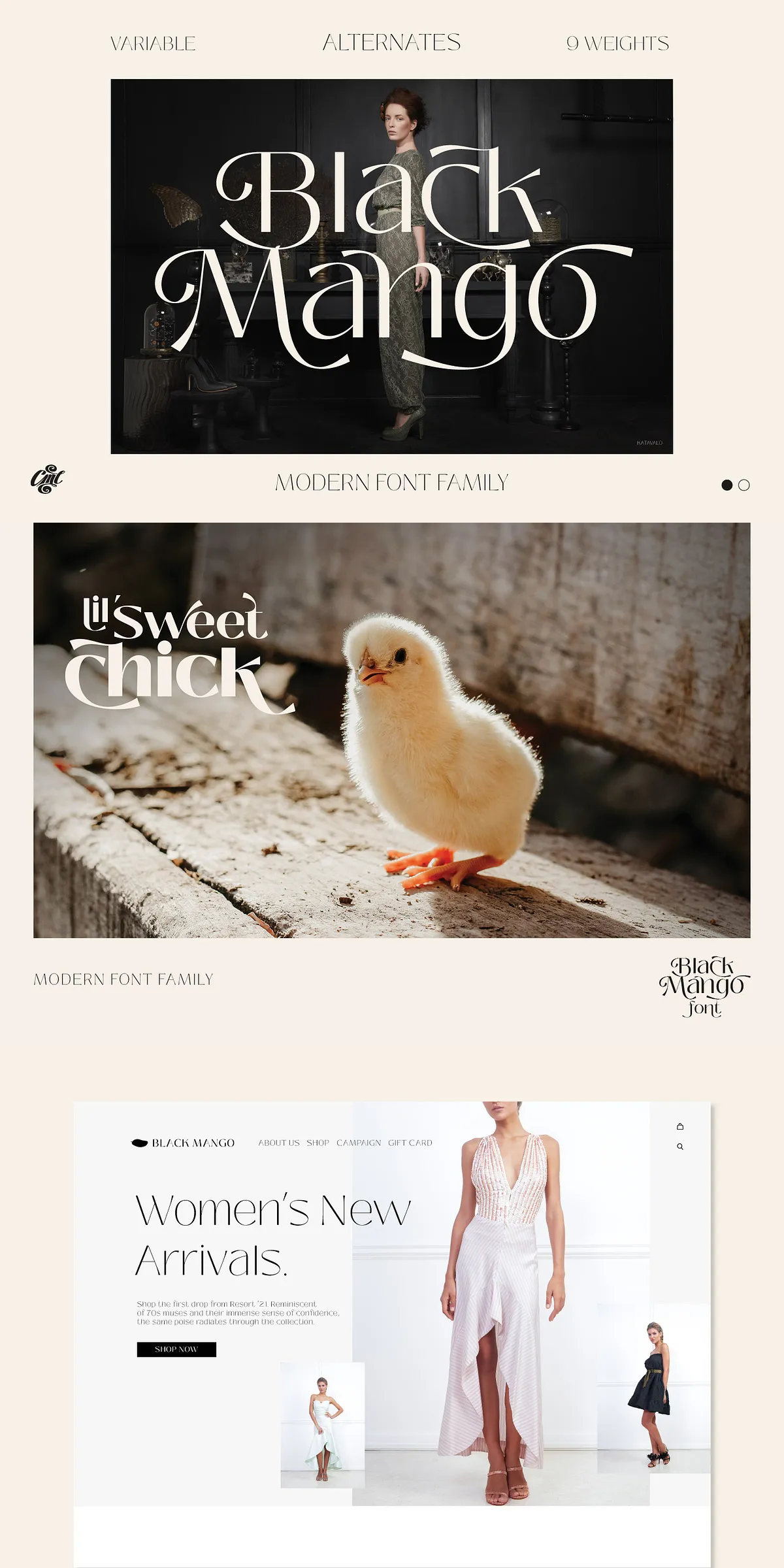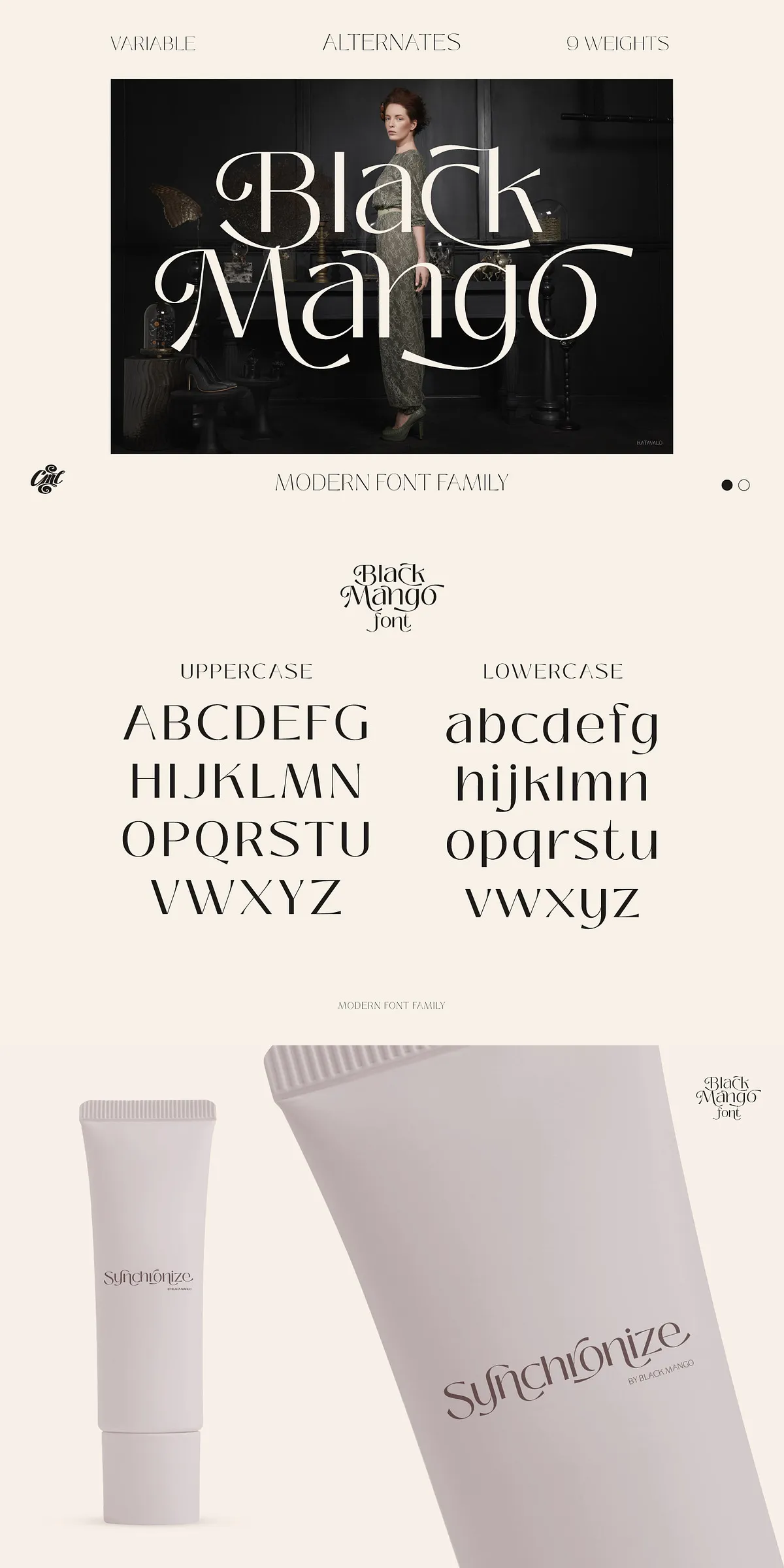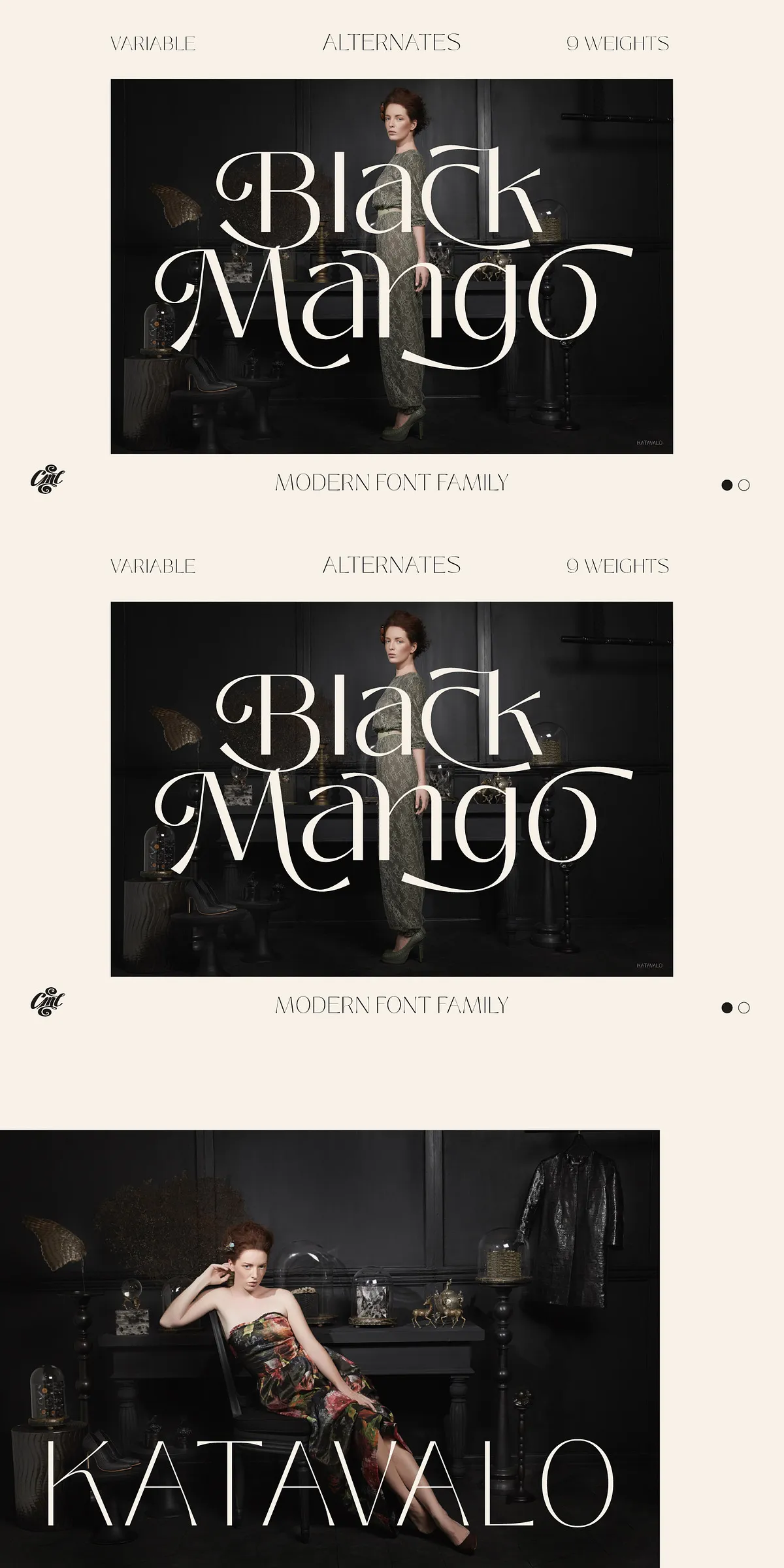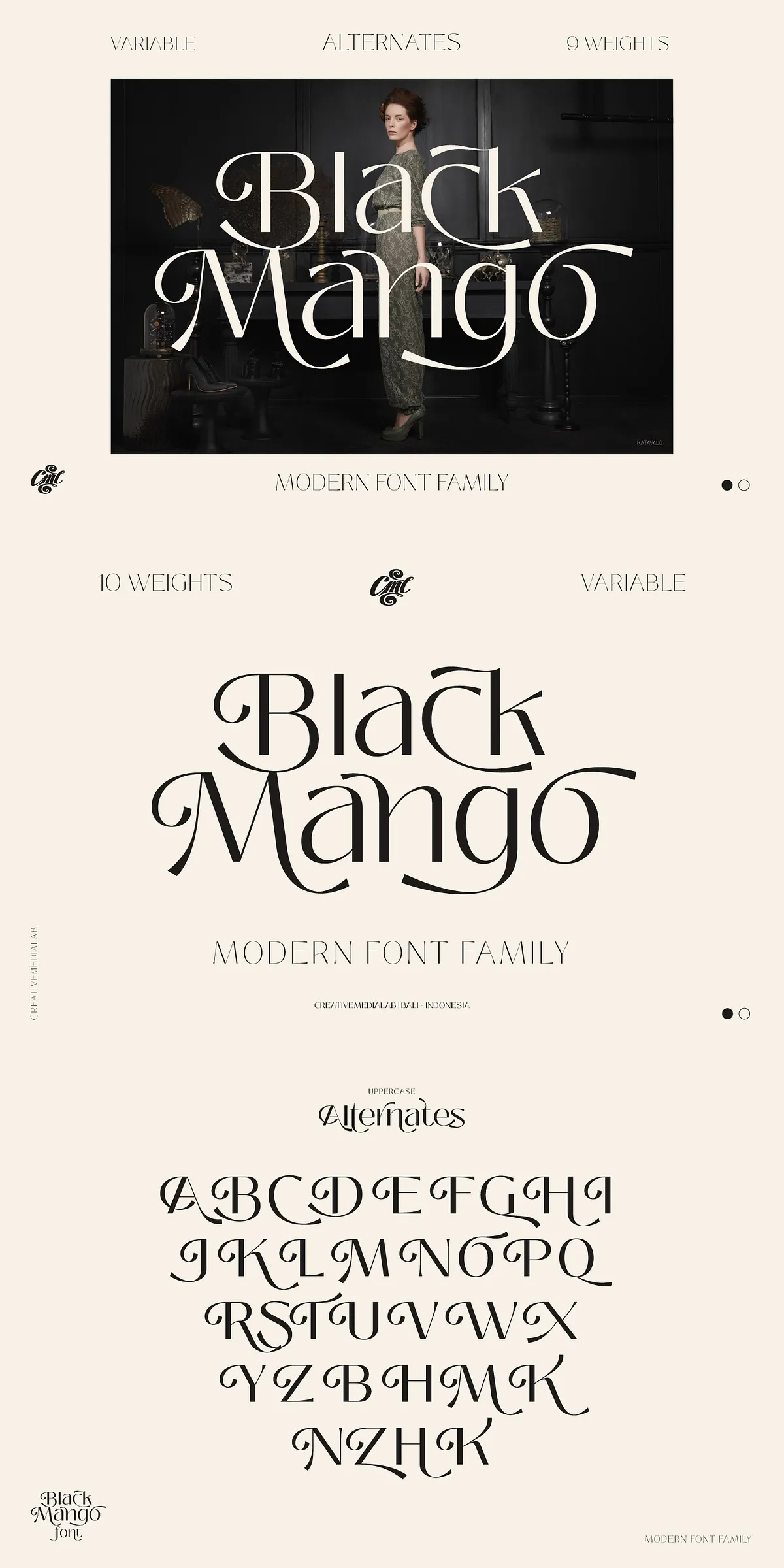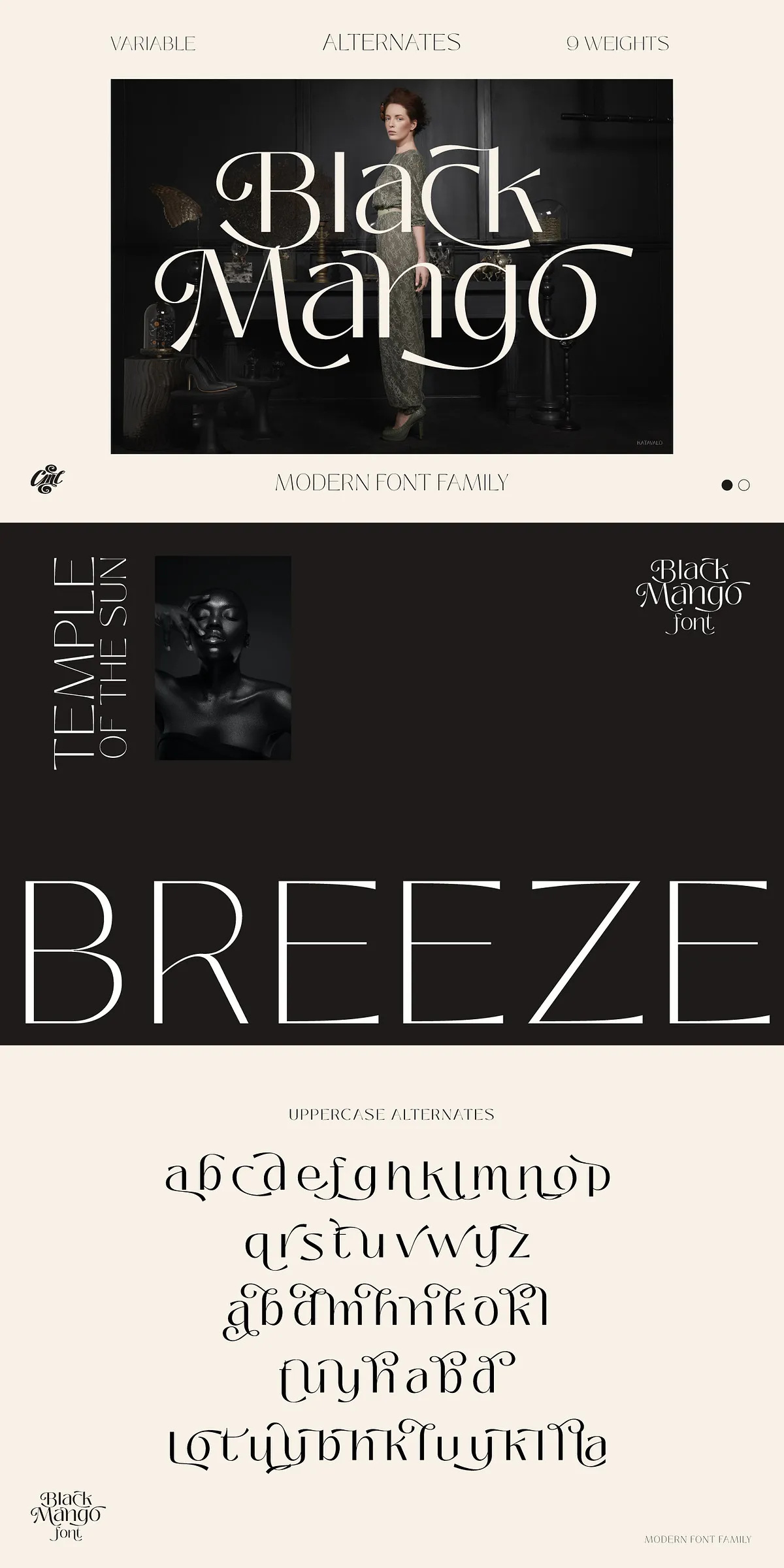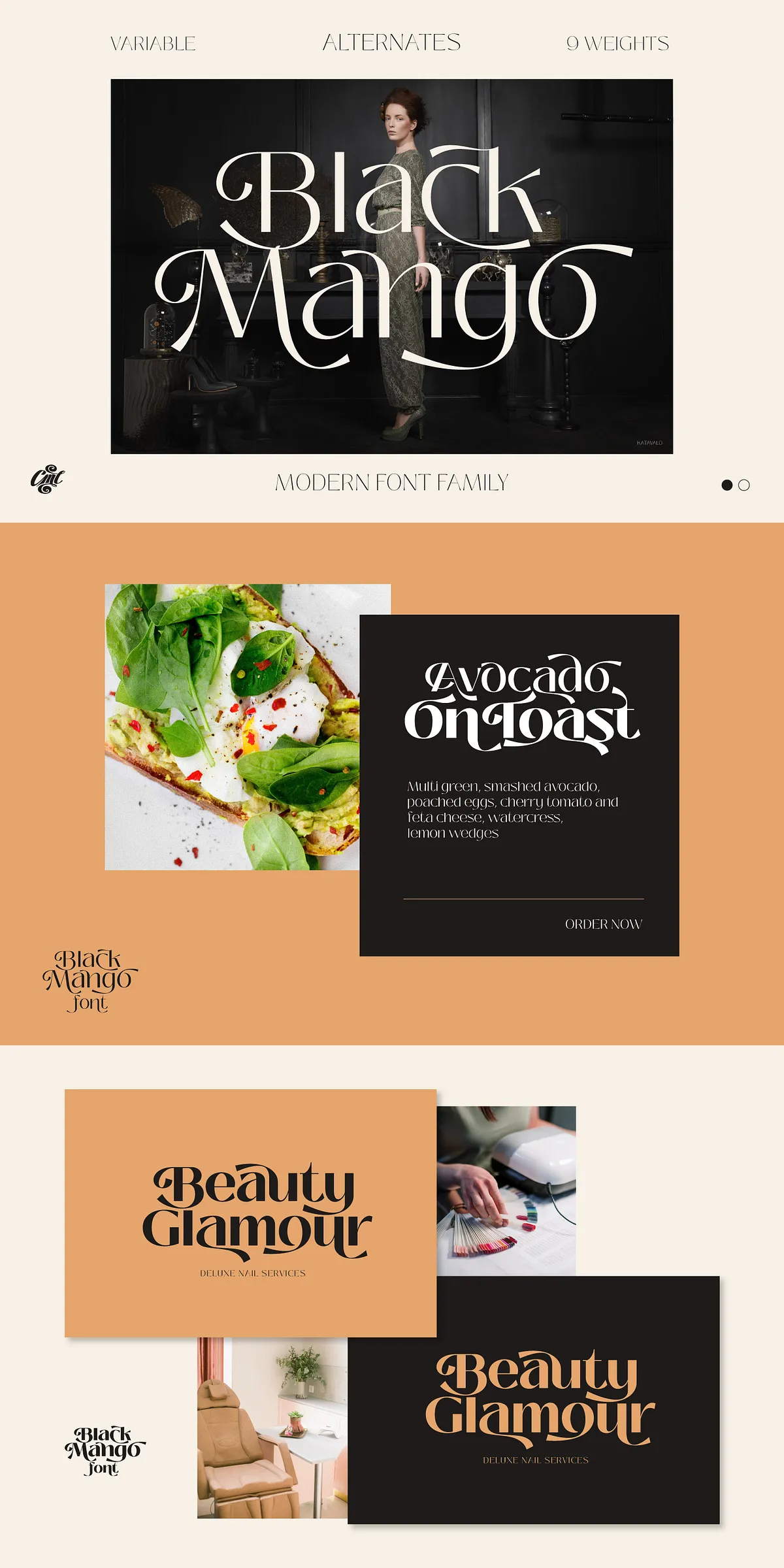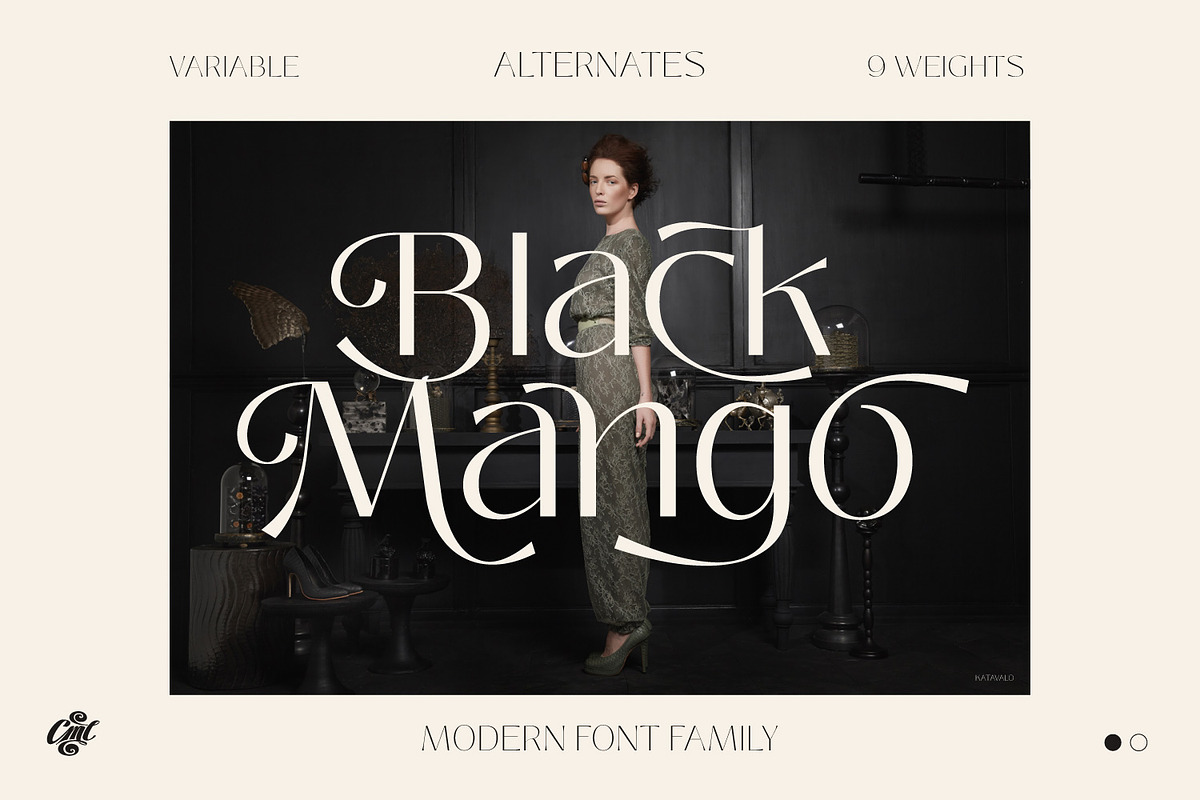
Introducing Black Mango Font Family — a bold, minimalist powerhouse crafted for the modern designer. With 9 distinct weights and dozens of stylistic alternates, this versatile font family is engineered to adapt and excel across a wide spectrum of creative applications. Whether you’re building a global brand identity, crafting a sleek website, designing a logo, or developing digital interfaces, Black Mango delivers precision, elegance, and unmatched flexibility.
Engineered for Modern Design Excellence
9 Weights, Infinite Possibilities
From ultra-light to ultra-bold, each weight in the Black Mango family is meticulously crafted to maintain optical consistency and structural integrity. This allows you to establish a deep visual hierarchy across print and digital formats. Use the light weights for clean, airy headlines, and scale up to the heavy weights for commanding displays — all while preserving the brand’s cohesive tone. The wide range ensures your message is communicated with the right intensity, every time.
Dozens of Alternates for Custom Brand Identity
Black Mango isn’t just a font — it’s a design tool. It includes **dozens of alternates** that let you dynamically adjust letterforms to match your brand’s personality. Swap out standard glyphs for custom versions that add character, rhythm, or contrast. Use alternates to:
- Create unique logo variations
These alternates are not random — they’re thoughtfully designed to maintain harmony within the type family, ensuring your creative freedom doesn’t sacrifice professionalism.
Powerful Features for Digital & Global Projects
Variable Font Support for Dynamic Design
Black Mango supports the latest variable font technology, enabling continuous interpolation across weight, width, and slant axes. This means you can:
- Adjust thickness on the fly without loading multiple fonts
- Create smooth animations in web and app interfaces
- Reduce file size and improve loading speed
- Offer interactive typographic experiences in dynamic content
Perfect for responsive websites, mobile apps, and interactive media — Black Mango gives you control, performance, and visual fluidity in one seamless package.
Full Multilingual & Symbol Support
Designed for global use, Black Mango offers comprehensive multilingual support. Its advanced character set includes:
- Western European languages (English, French, German, Spanish, Italian, Dutch)
- Extended Latin characters with diacritics
- Support for numbers, currency symbols (USD, EUR, JPY, GBP, etc.), punctuation, and technical icons
- Optical spacing and ligatures for professional typographic quality
Whether you’re creating multilingual websites, international branding materials, or financial reports, Black Mango ensures consistent, polished typography — no matter your audience.